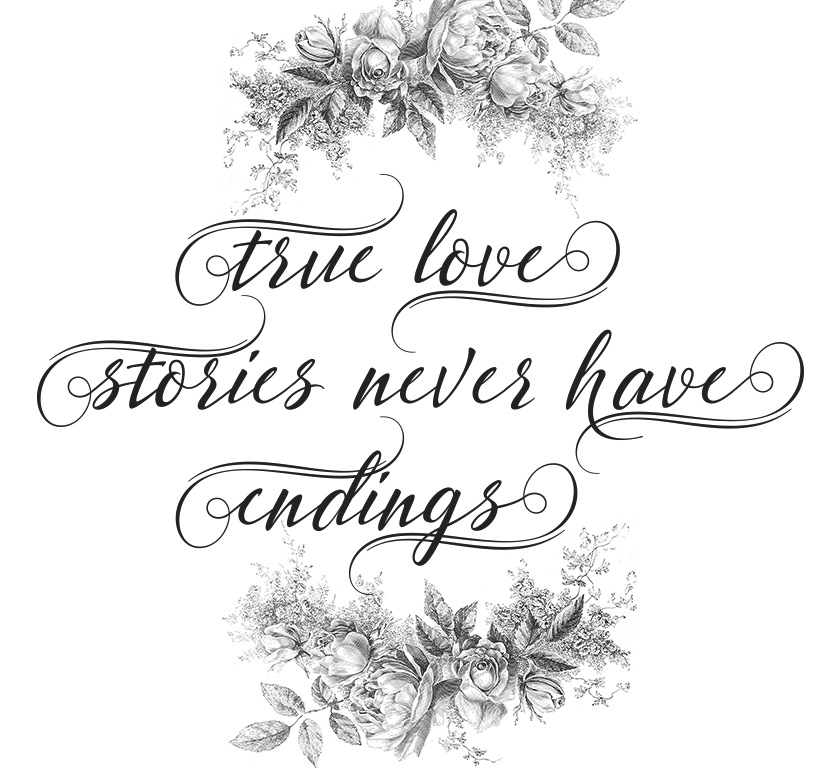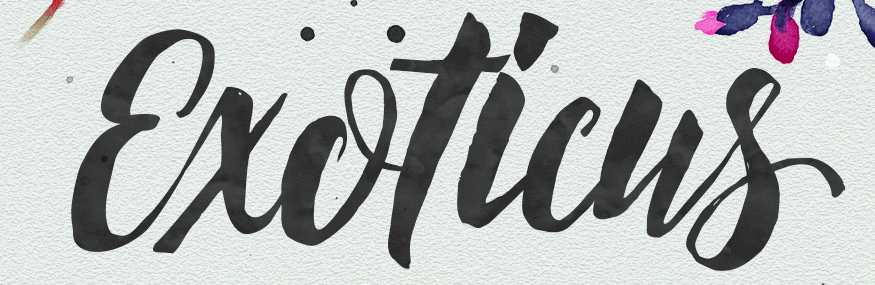
Groen Studio (or: Jorse Creative, or: Jorsetype) [Symon Adam Abdullah]
Aka Ay Terry, Ayi Teiry, Roy Yan, Jorse Creative, Symon Adam, Symon Adam Abdullah, Ront Beld, Groen Studio, Lage Jorse, Roiyani, Roiyani Teungku, Roy Yani, Ront Jorse, Groen Lagoe and Roy Jorse, b. 1979. Banda Aceh, Indonesia-based creator of the connected retro signage script typefaces Exoticus (2015), Random Ink (2015), Catfish Script (2015), Umbrella (2015), Wolf Bane (2015: an upright connected script; a Pro version appeared in 2018), Bettaria Script (2015), Matador (2015), Melani Script (2015), Aslang Barry (2015, connected calligraphic script), Fameliya (2014, a connected wedding script), Olivera (2014), Mutiara (2014), Routine Script (2014), Bunthok (2014), Fretaliya (2014), Fatimma (2014), Cuplex Script (2014) and Semadome Script (2014). Ront also designed the brush typefaces Rocket (2015) and Fronte (2015), the more formal connected script typeface Monalisa (2014, renamed later to Montala, probably under pressure from Monotype, owner of ITC Mona Lisa), the calligraphic Amtenar (2015), the brush script Fire Vector (2015), the connected brush script typeface Standly (2015), the script font Maphylla (2015), Freestyle (2015), and the fun connected script typeface Emillia Script (2015).
Typefaces from 2016: the connected script typefaces Hermes, Beatrice, Bellati, Slowly and Elmaira, the sans typeface Asiach, the handcrafted typeface Country, and the brush script typefaces Astro, Getter, Metric, Brusher, Spontance, Fronte Script, Rocket, Arthands, Brokelly, Armant, Batagors (calligraphic dry brush style), and Almaida, the sans titling typeface Asiach, the connected script Spontance, the handcrafted Country Light, Twetter (swashy calligraphic style), Rantes, Lucue, Brusher (dry brush), Beetle (connected script), Freestyle, Notulen.
Typefaces from 2017: Herawati (signature font), Shabira, Bintang, Hand Boys, Sambilan, Betania (brush), Blangku, Valentina, Mother Love, Mangifera (calligraphic script), Happy Berry, Expant (dry brush script), Boston (brush script), Rosenesya (calligraphic script), Bonita (fat brush), Shabira, Amster (an elegant high-contrast signage script), Just Beauty, Justin, Blangku, Mother Love, Bettol, Anitha (calligraphic script), Settiya, Hello Sweety, Expant (dry brush), Boston, Bonita, Astro (brush script), Metric, Getter (dry brush script), Hermes, Arthands, Brokelly, Bellati, Country Family, Batagors (a great dry brush calligraphic script), Armant, Slowly, My Heart, Love & Heart, Heartless, Justin (rough brush script), Muthya.
Typefaces from 2018: Romantina, Solution (sans), Mellanie, Rocket, Fronte Script, Berlian.
Typefaces from 2019: Muctar (a signage script by Ront Jorse), Taranum (a calligraphic script), Delegation (Script, Sans; by Symon Adam Abdullah), Quintrell, Vortices, Wolfsbane (by Sai Poel), Wamelo.
Typefaces from 2020: Creative Signature.
Typefaces from 2021: Chayton (script), Osmont (a Treefrog script), De Monte (a 20-style geometric sans).